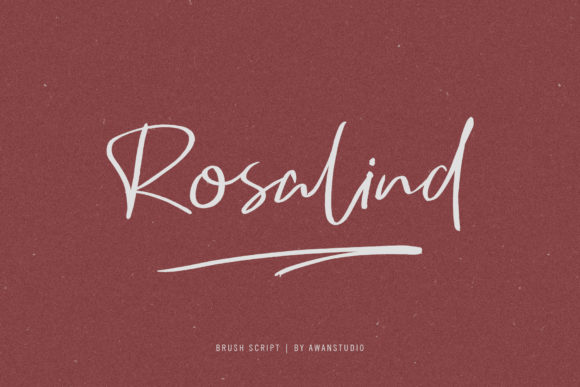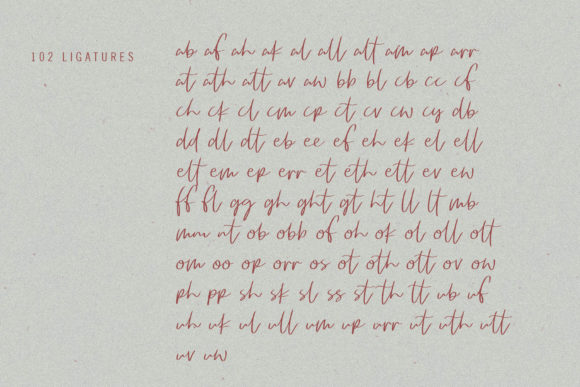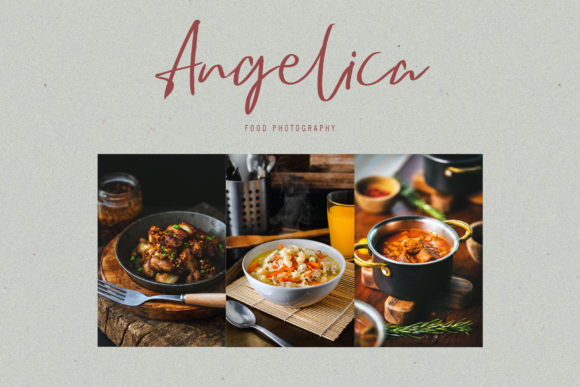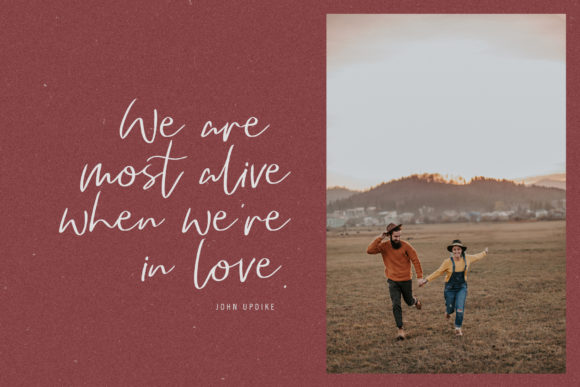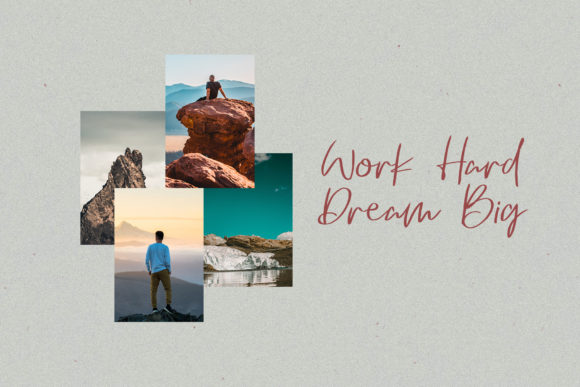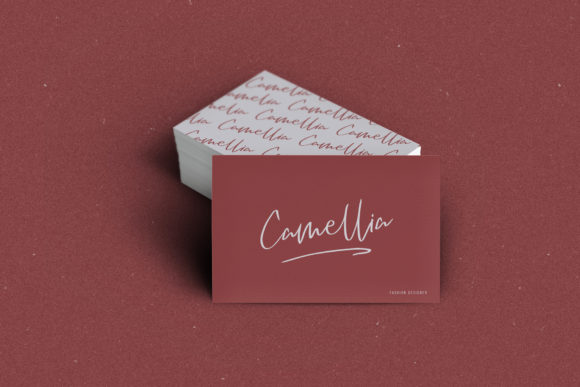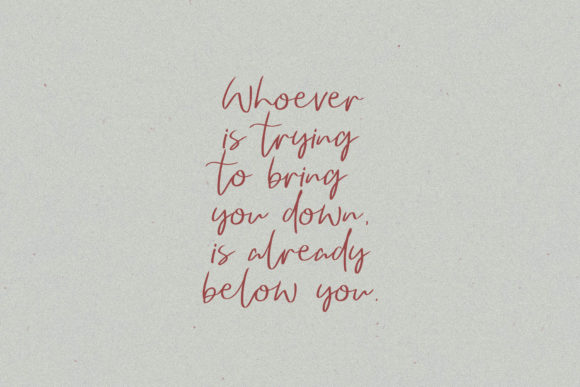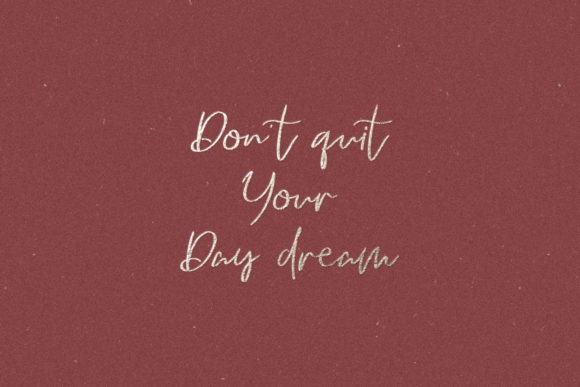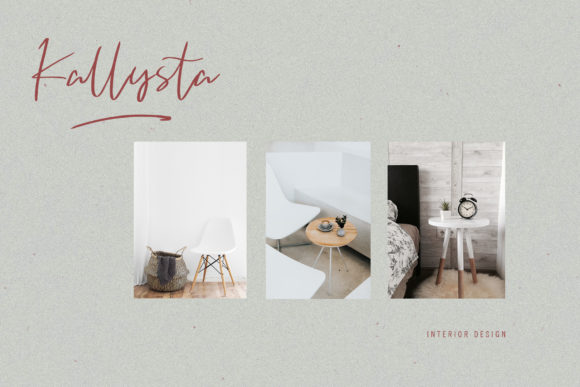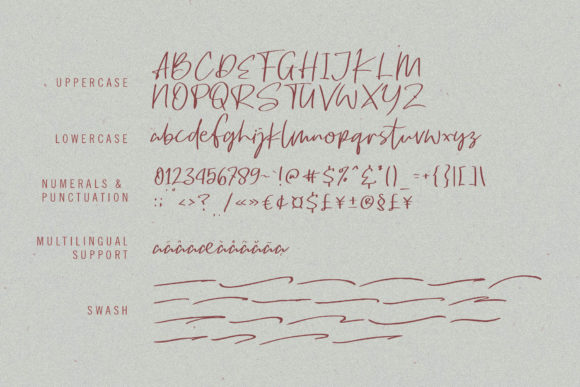
Rosalind Font
About Rosalind Font
Rosalind is a bold and charming handwritten font with an incredible feel. Use it to add an organic touch to any design project.